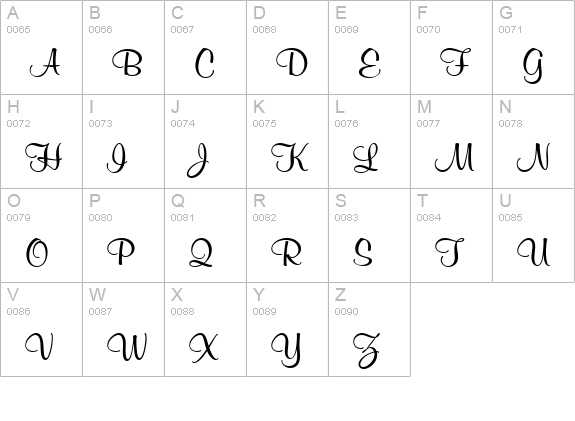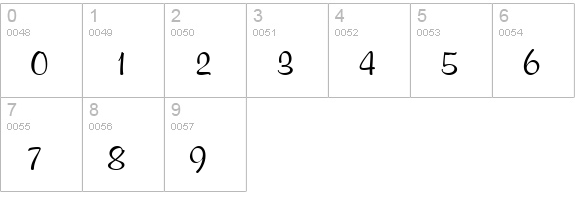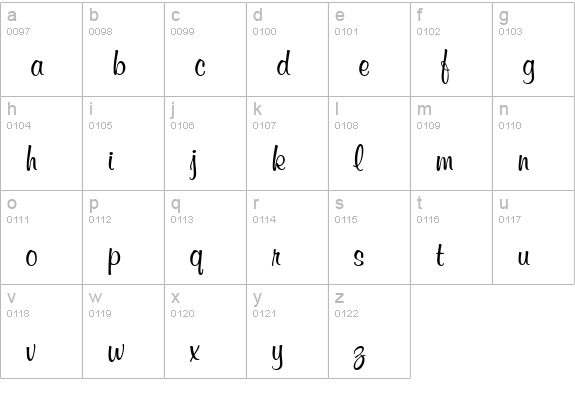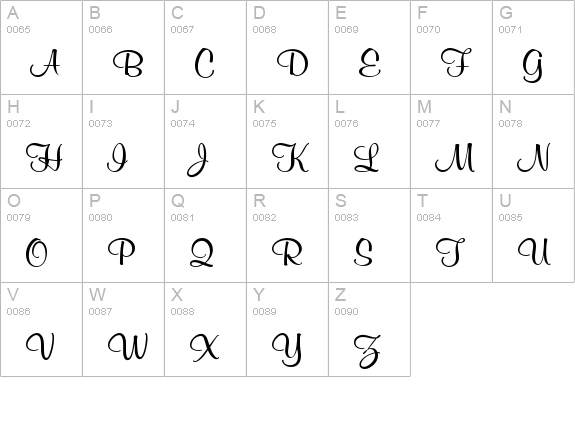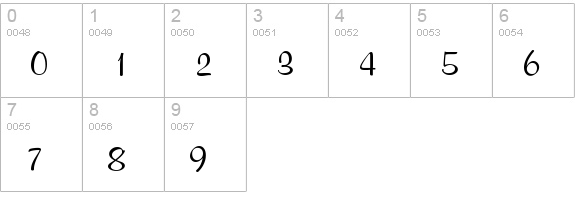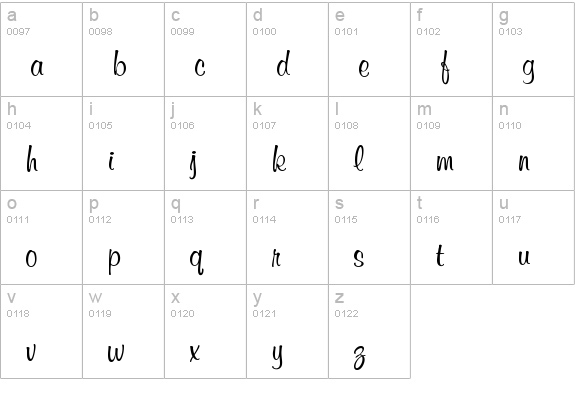
MurrayHilDEE Font Details
Introducing MurrayHilDEE font, a modern and versatile typeface that combines elegance with a touch of playfulness. This unique font features clean lines and a distinctive style that is perfect for a wide range of design projects. With its bold and eye-catching appearance, MurrayHilDEE font is sure to make a statement and capture the attention of your audience. The best part? MurrayHilDEE font is completely free to download at FontsMarket.com! Whether you're working on a branding project, creating marketing materials, or designing a website, this font is a great choice to add a touch of sophistication to your work. Don't miss out on the opportunity to enhance your designs with this stunning font - download MurrayHilDEE today and elevate your creative projects to the next level.